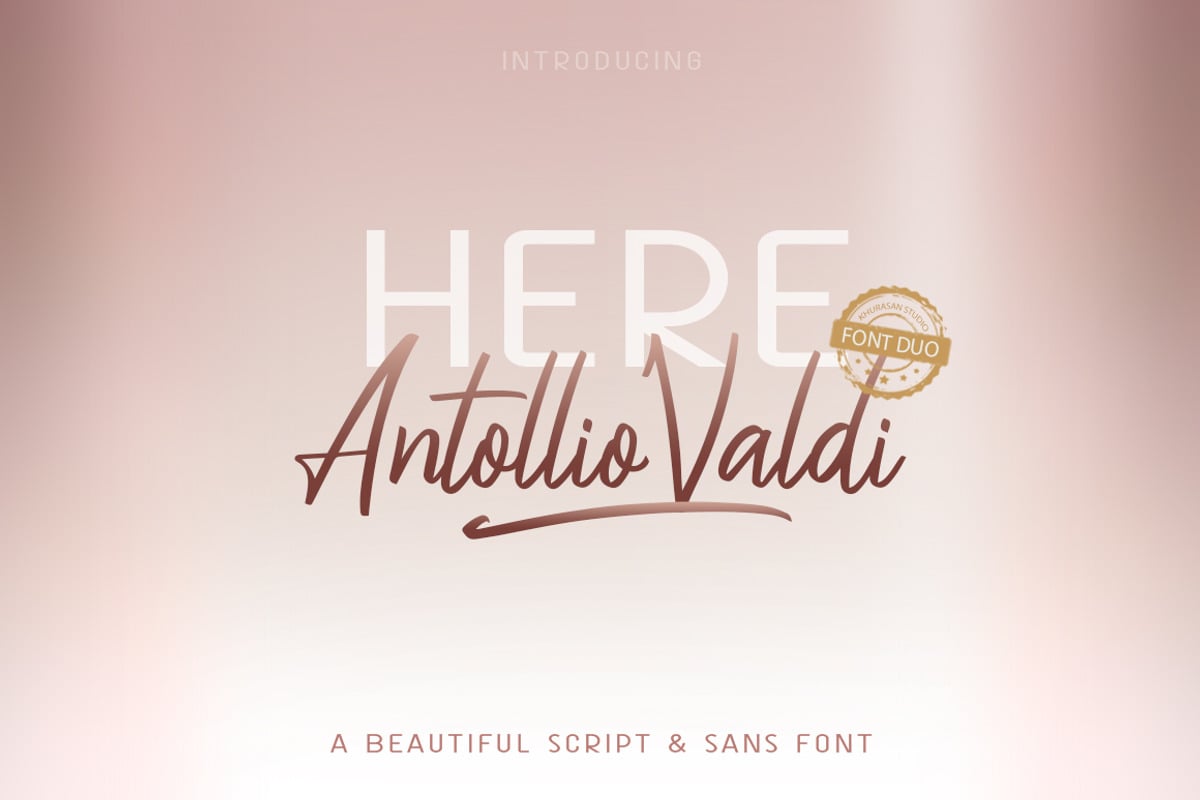
Here Antollio Valdi Font Duo
Elevate your designs with this stunning modern script and sans serif font duo combination. The Here Antollio Valdi Font delivers fresh, contemporary style by pairing an elegant script font with a clean sans serif typeface. Combine both styles to achieve truly amazing visual results in your creative projects. This versatile typography package works beautifully for logos, branding projects, greeting cards, posters, and any design where you want to make a sophisticated impression. Files Included: H...